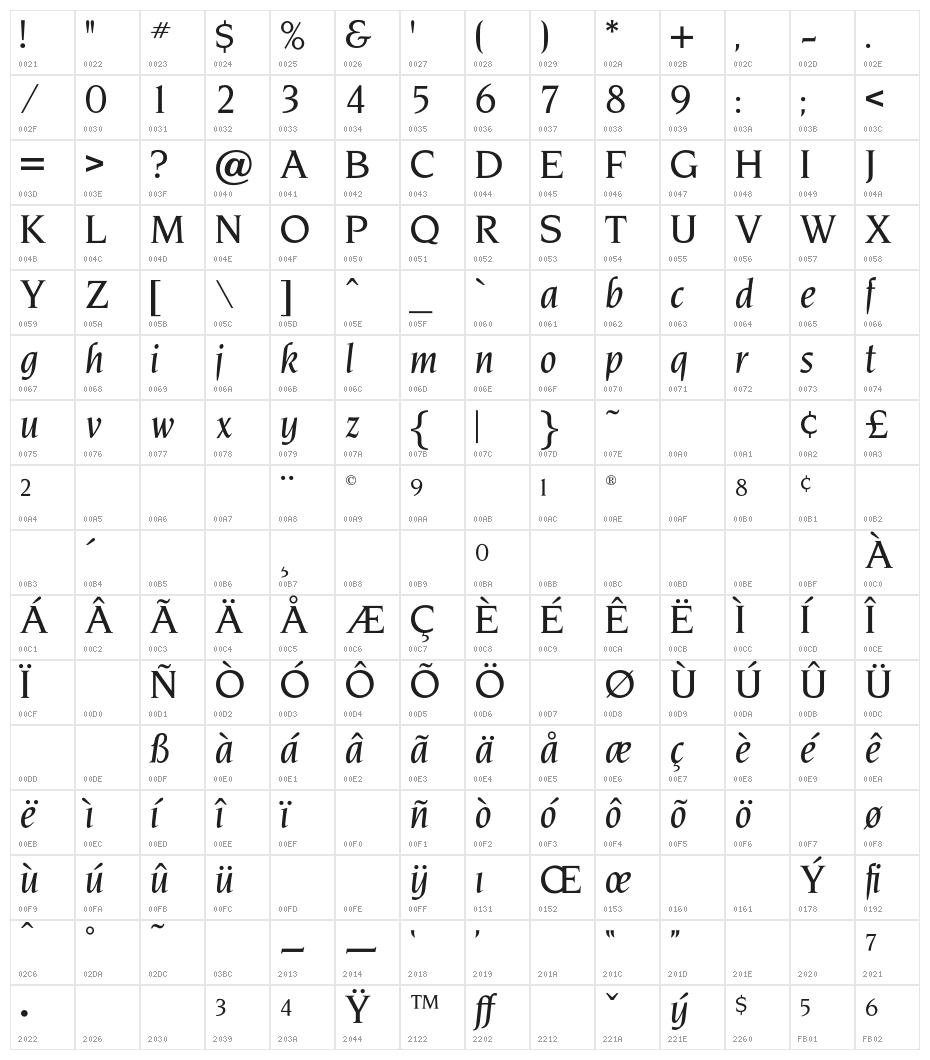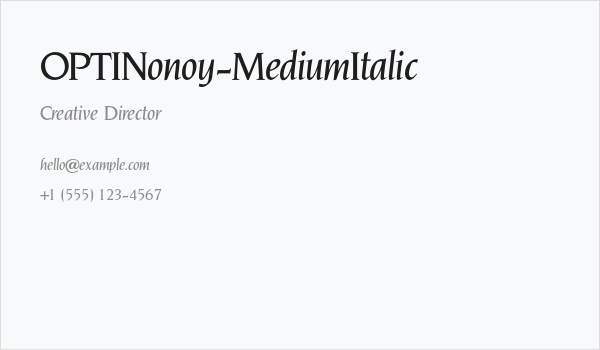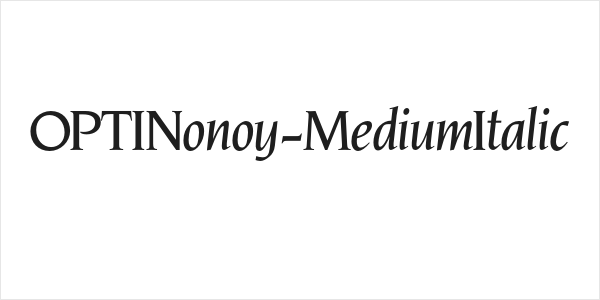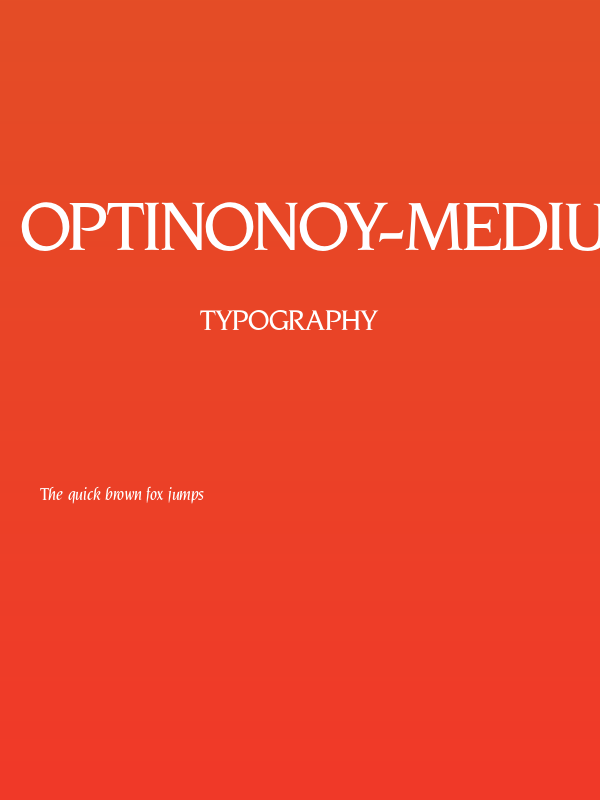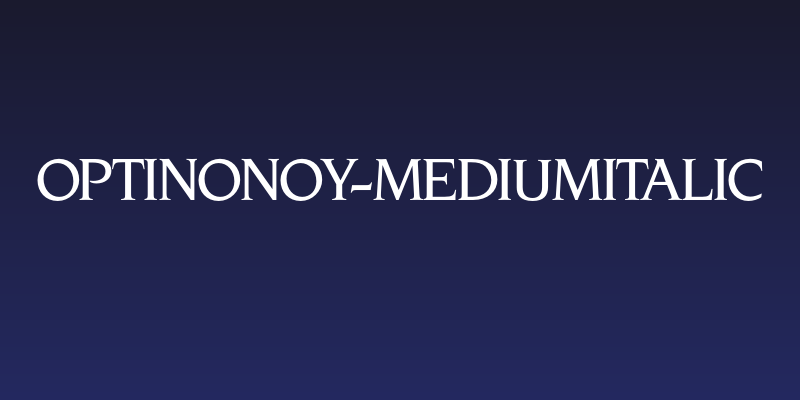
OPTINonoy-MediumItalic Font
OPTINonoy-MediumItalic Description
This font features a sophisticated and elegant design with a slight italic slant, giving it a dynamic and fluid appearance. The uppercase letters are bold and commanding, while the lowercase letters maintain a graceful flow. The numerals are clear and distinct, ensuring readability. Special characters are well-integrated, adding versatility to the font. The overall design is balanced, with moderate contrast in stroke thickness, making it suitable for a variety of applications.